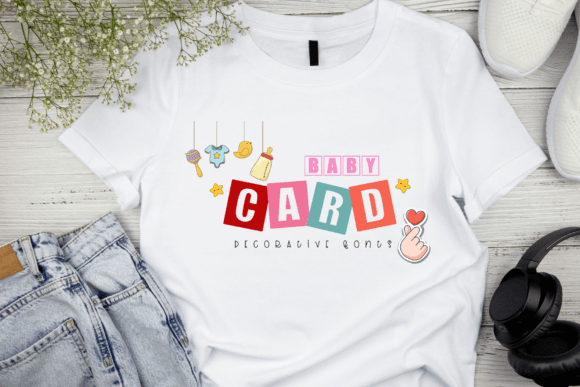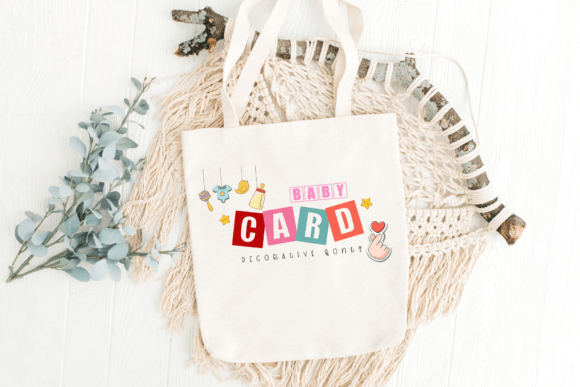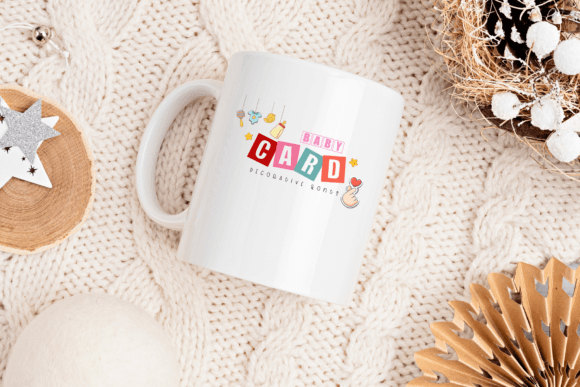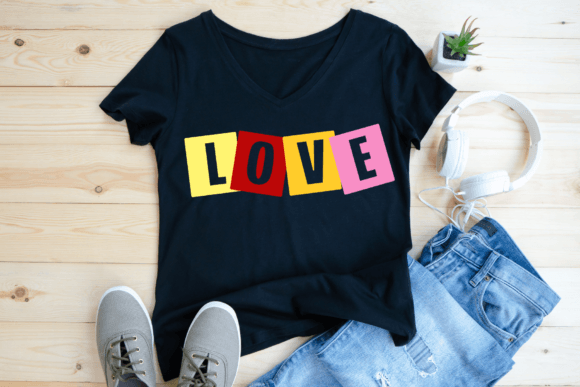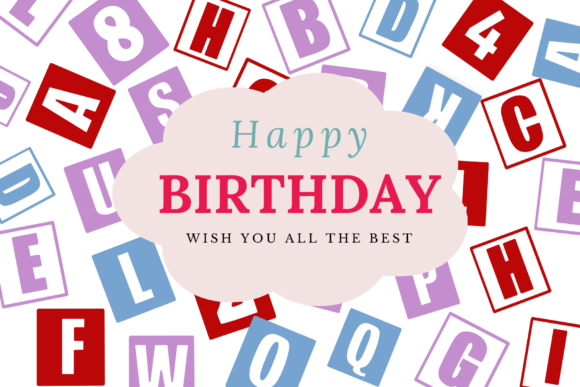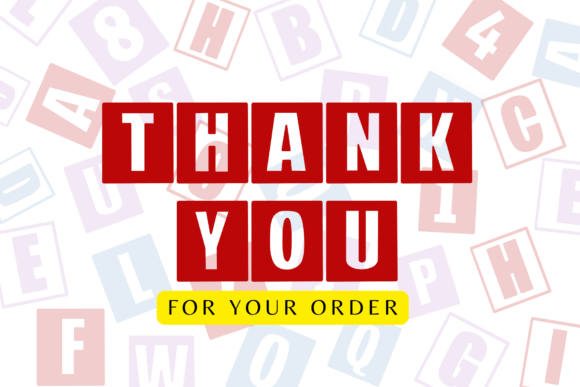
Introduction to Baby Card Font
Baby Card is a Decorative font.
You can use it for taking notes, writing a diary, or making greeting cards However, you can still use it for other designs, such as banners, content, mugs, cards, shirts, stationery, social media posts, and more.
Baby Card Font offers exceptional quality and versatility, making it a valuable addition to your design toolkit. Whether you’re creating for personal projects or commercial use, Baby Card Font delivers professional results.